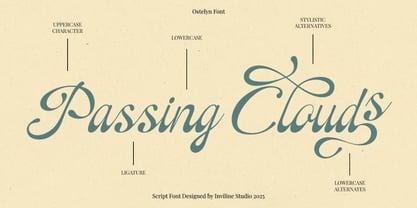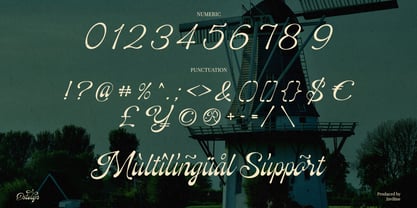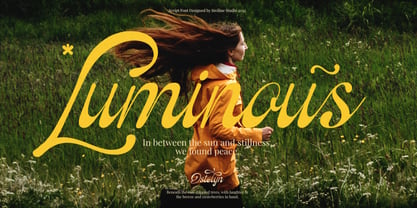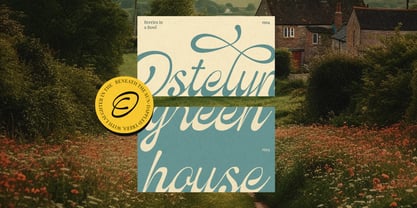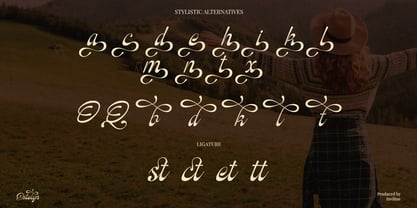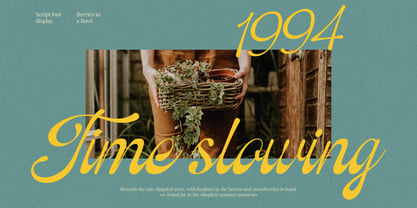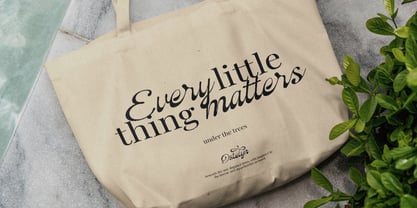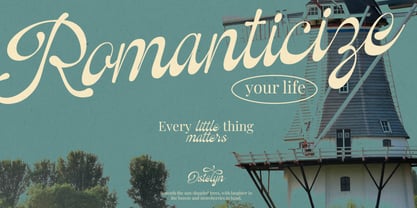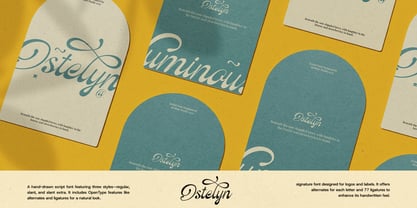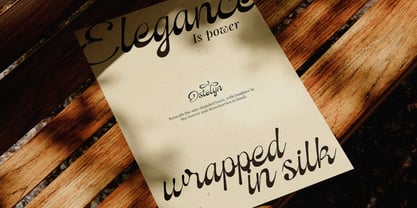
Ostelyn
by Inviline
The Ostelyn Font Family was designed by Virgiawan Listanto and published by Inviline. Ostelyn contains 1 styles. More about this family
Ostelyn is a refined romantic script typeface that draws inspiration from nostalgic countryside moments and the timeless beauty of handwritten text. This typeface infuses softness, warmth, and expressive elegance into every composition. What You Get: a complete set of uppercase and lowercase characters, numerals, punctuation, multilingual support, smooth ligatures, and stylish alternates featuring flowing swashes that create a sense of natural movement and harmony. Ostelyn is perfect for wedding invitations, branding, editorial layouts, logos, packaging, quotes, fashion campaigns, social media graphics, and elegant merchandise where a graceful, poetic, and sophisticated script presence is essential.
Designers: Virgiawan Listanto
Foundry: Inviline